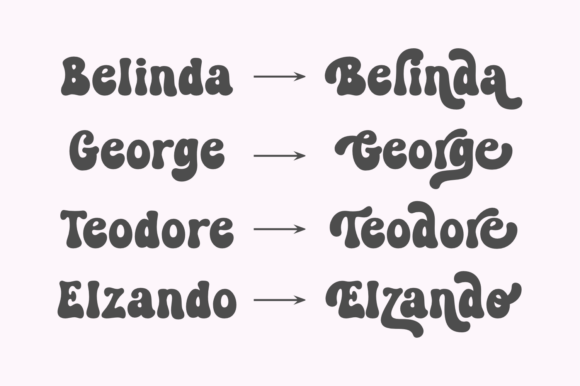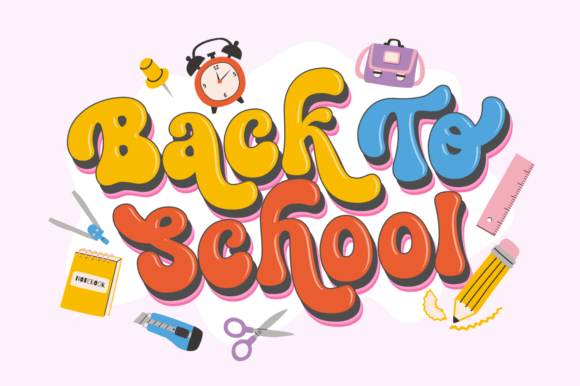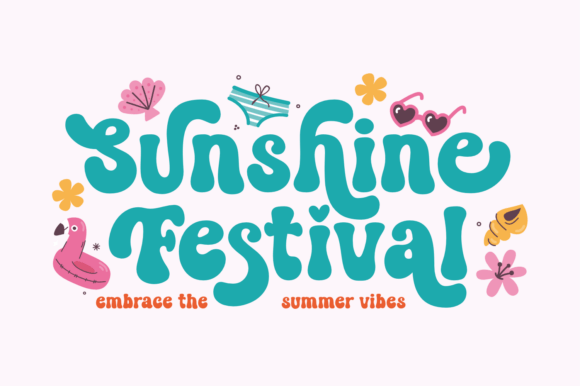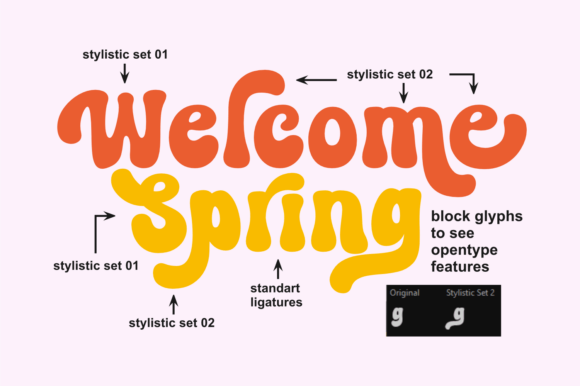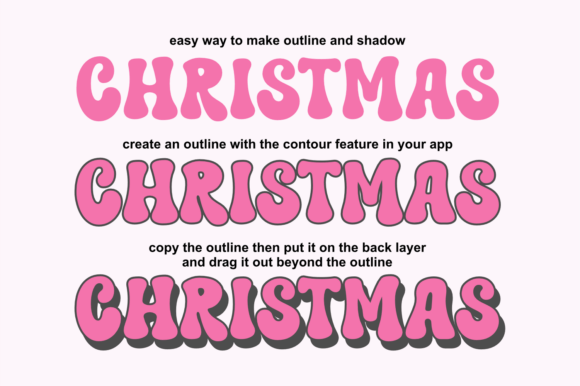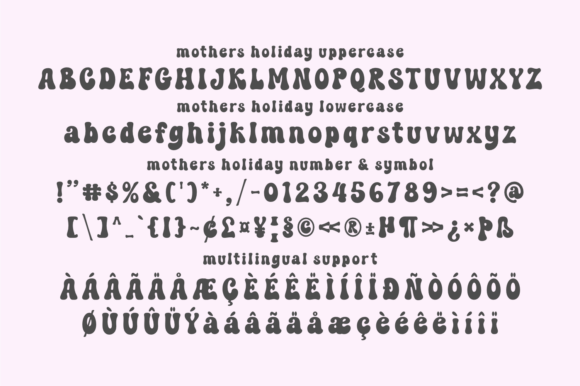
Introduction to Mother’s Holiday Font
Who hasn’t stared at a blank canvas, waiting for the perfect design to emerge? The blank page can be intimidating, but what if you had a secret weapon to make your creative project shine? That’s where the Mother’s Holiday Font comes in – a game-changing design resource that’s about to become your go-to companion for crafting stunning visuals.
Imagine being able to whip up a birthday invitation that screams fun, or a summer-themed sticker that’s so eye-catching it stops traffic. With Mother’s Holiday Font, the possibilities are endless. This high-quality font is packed with charming alternates and extra glyphs, making it the perfect choice for designers looking to add a touch of whimsy to their projects.
Whether you’re working on a free download or a high-end commercial design, the Mother’s Holiday Font is a valuable addition to your toolkit. Its transparent background and wide range of styles make it a versatile design resource that’s sure to elevate your work.
- High-quality, elegant design ideal for creative projects, such as greeting cards, gift tags, and scrapbooking.
- Unique, hand-drawn style with intricate details and subtle textures, adding a personal touch to any design.
- Perfect for Mother’s Day, Easter, and other spring-themed projects, making it a seasonal design resource.
I recently came across the Mother’s Holiday Font and I must say it’s a great addition to any designer’s toolbox. The high quality of the font is immediately noticeable, making it a valuable resource for any creative project.
What works well with this font is its versatility. It’s perfect for a wide range of designs, from holiday-themed projects to everyday use. The transparent background option is also a great feature, allowing for seamless integration into any design.
Overall, I’m impressed with the Mother’s Holiday Font and would recommend it to anyone looking for a high-quality font for their creative project. However, I do wish there were more font styles available to choose from.
The Mother’s Holiday Font is perfect for a variety of creative projects, including holiday cards, gift tags, and social media graphics. Its elegant and sophisticated design makes it ideal for weddings, baby showers, and other special occasions.